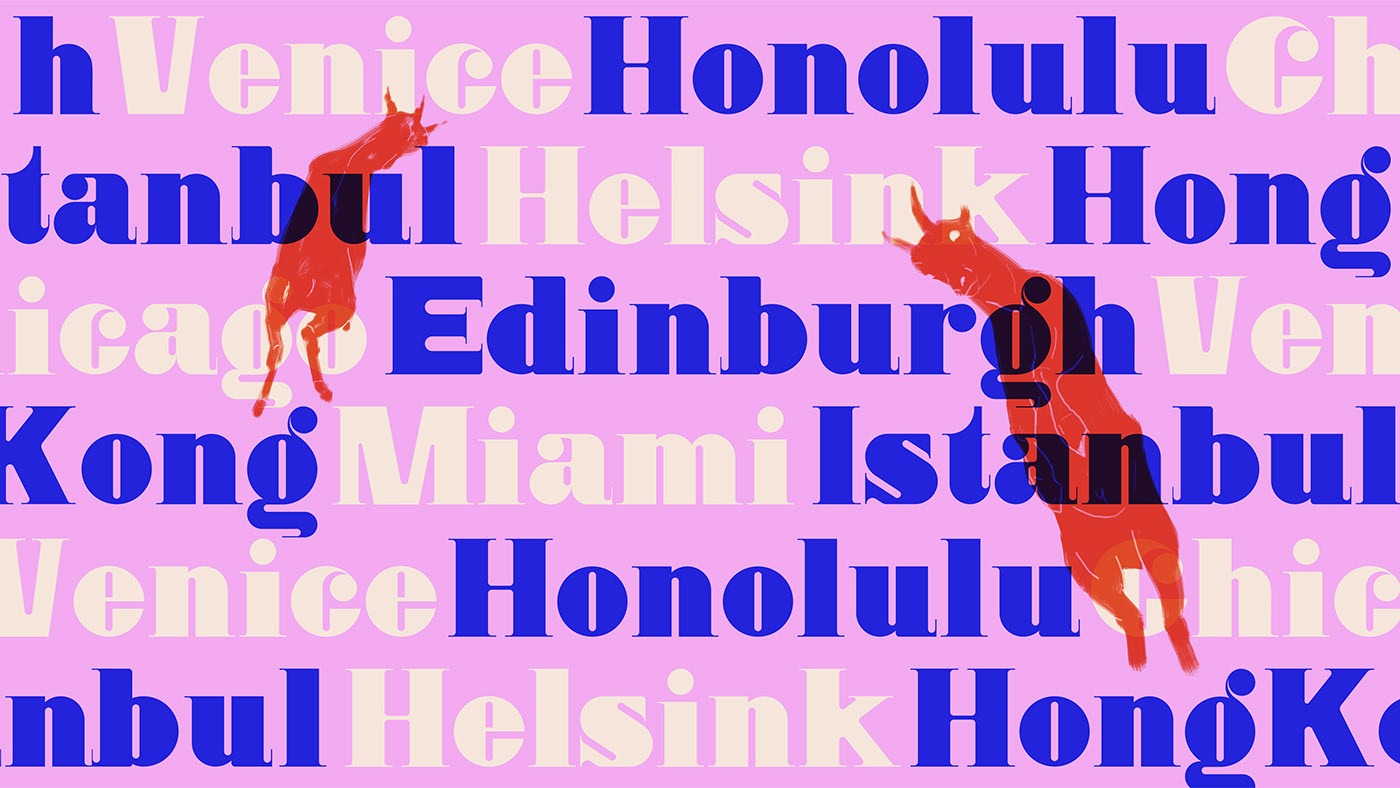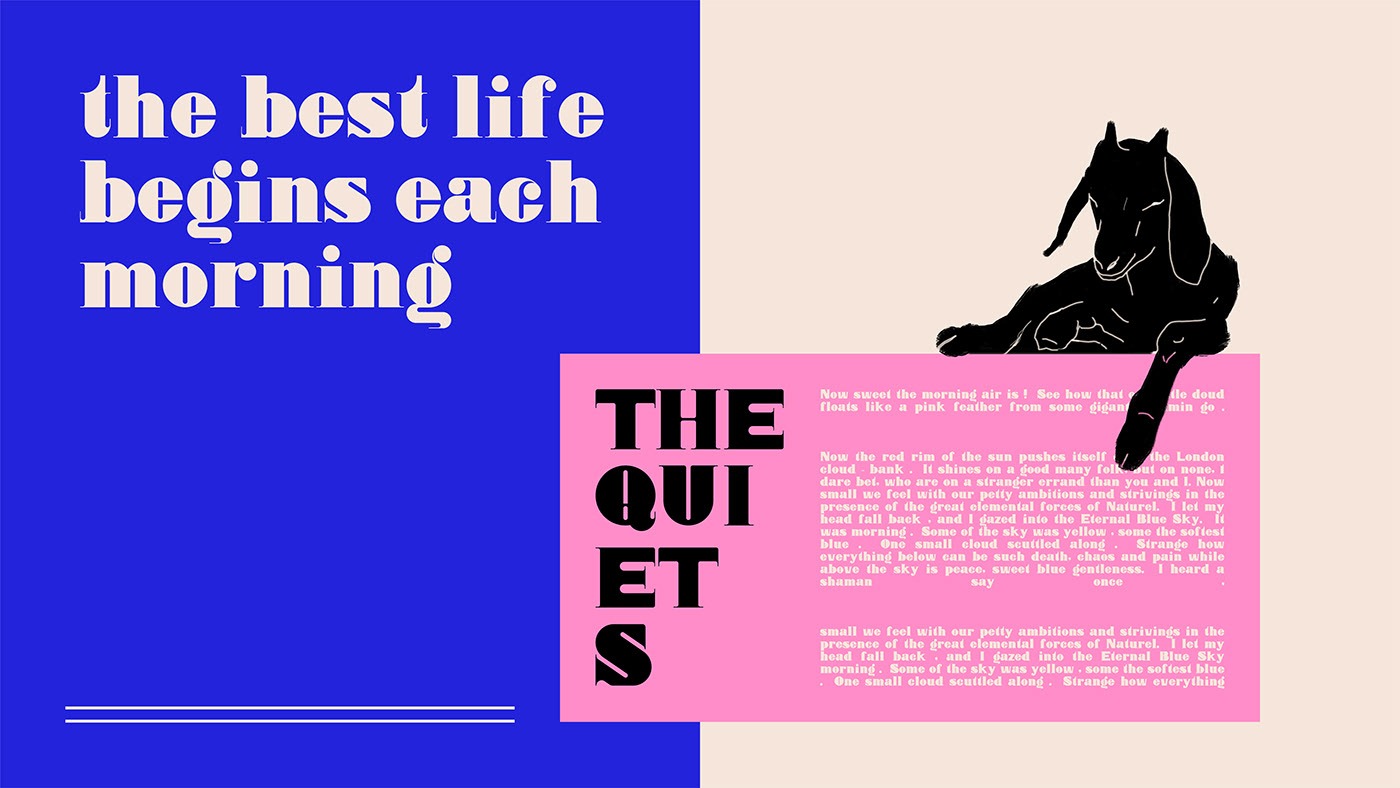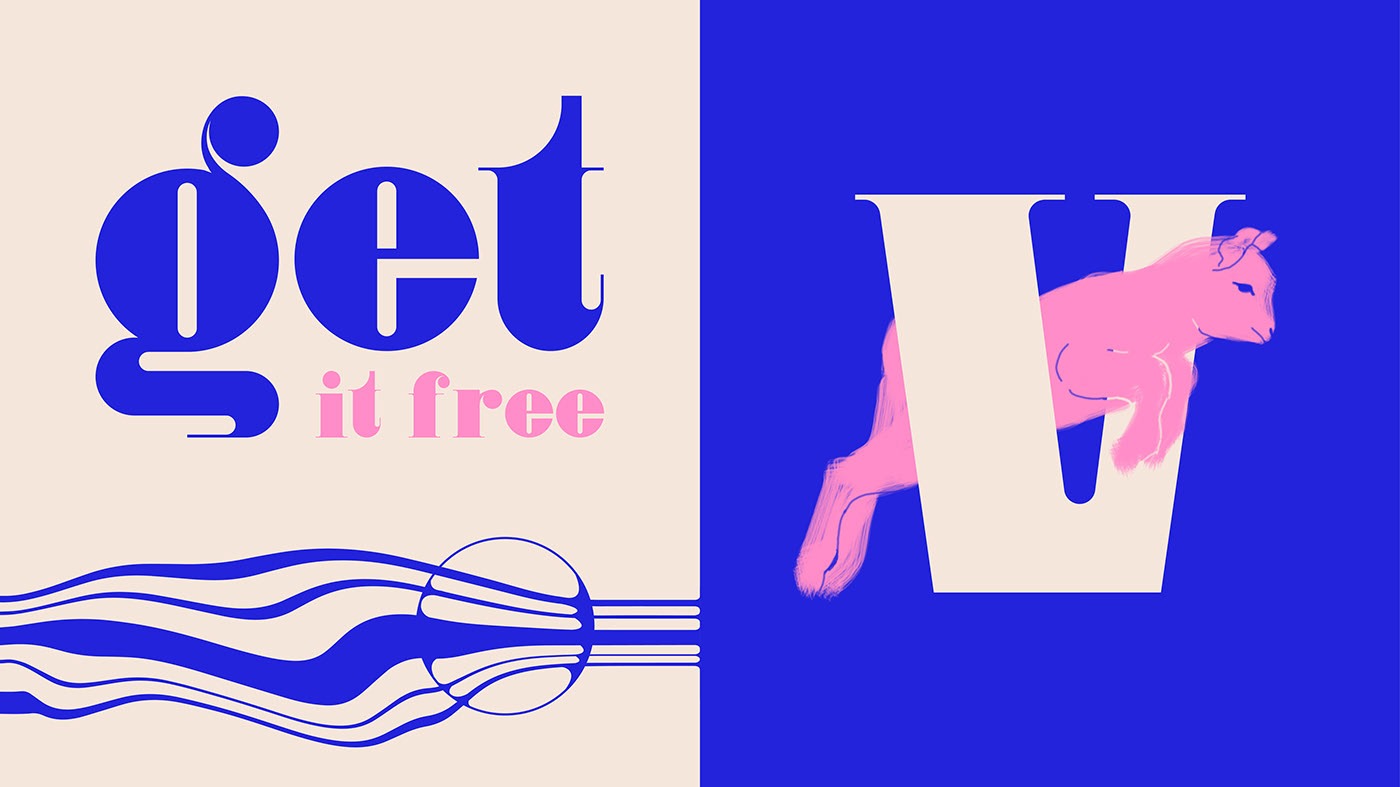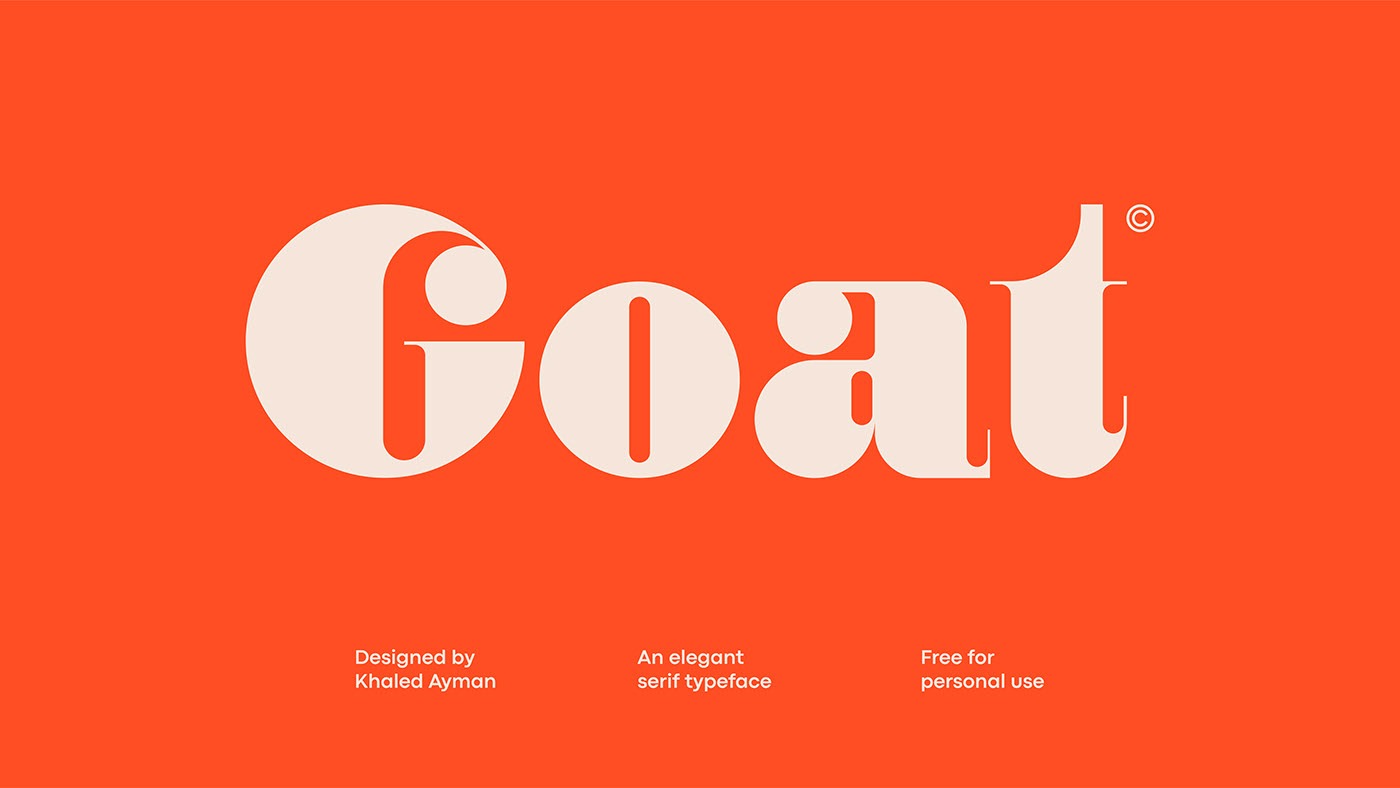
Goat Serif Font
This is a bold vintage style serif font with strong character and soft features. Made from font designer named khaled ayman. It’s a unique typeface inspired by nature elements, such as the goat’s unique eye. Goat has any only one font weight. The font includes numerals and some punctuation marks and symbols. The font is perfect for headlines, posters, billboards, logo design and much more.